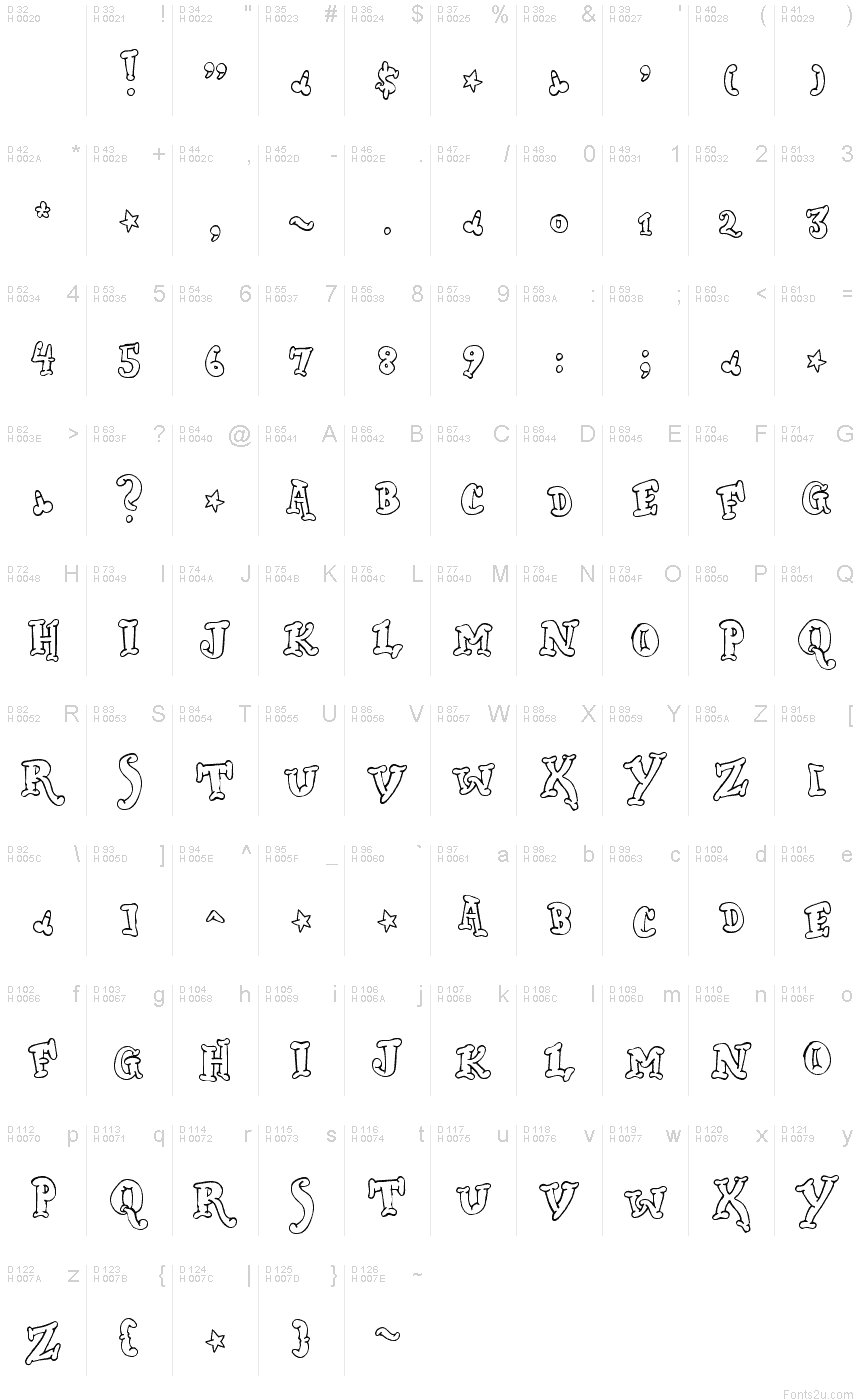
Dickwhipped Lincoln
Dickwhipped Lincoln font by Schmopyright is a free cartoon outlined display typeface in the Dickwhipped family that turns every letter into a wobbly, bone-like doodle. The lines are loose, hand-drawn, and a little mischievous, with puffy contours and hollow interiors that beg to be filled with bold color or wild textures. It has a scrappy, underground‑flyer energy that instantly signals “don’t take this too seriously.”
Using Dickwhipped Lincoln, you can push irreverent branding, party posters, DIY zines, sticker packs, gag gifts, and social media graphics into unapologetically cheeky territory. This free font thrives at big sizes where its outlined shapes and playful wiggles stay crisp and legible. Pair it with a clean geometric sans for body text so the joke lands clearly while the headline does all the loud, goofy talking.